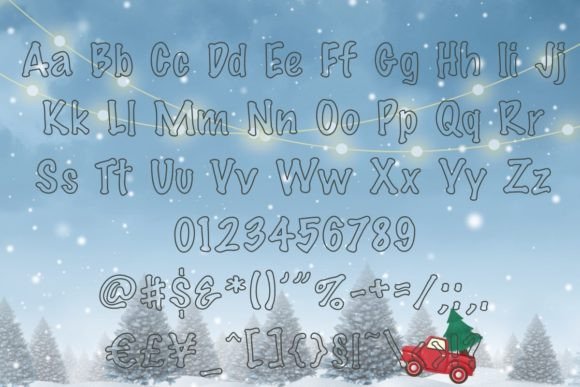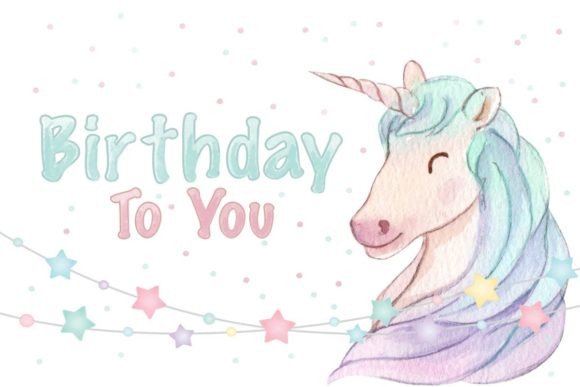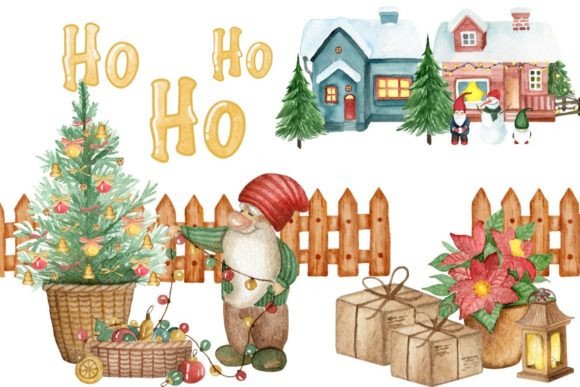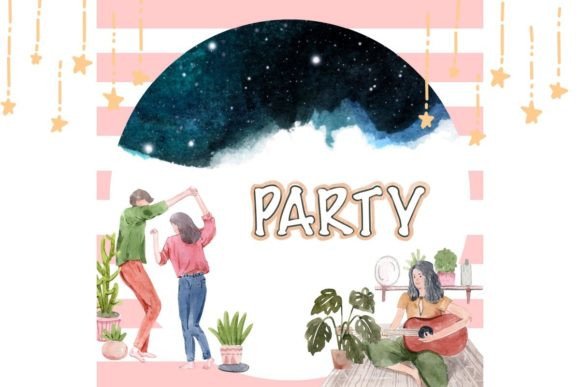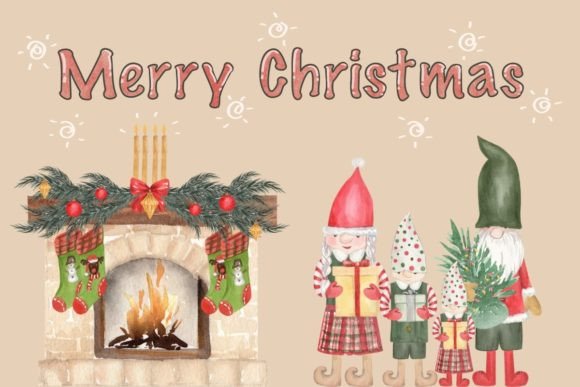
Jolly Season Font
About Jolly Season Font
Jolly Season is a fun and cute display font. Whether you’re using it for crafts, digital design, presentations, or making greeting cards, this font has the potential to become your favorite go-to font, no matter the occasion!